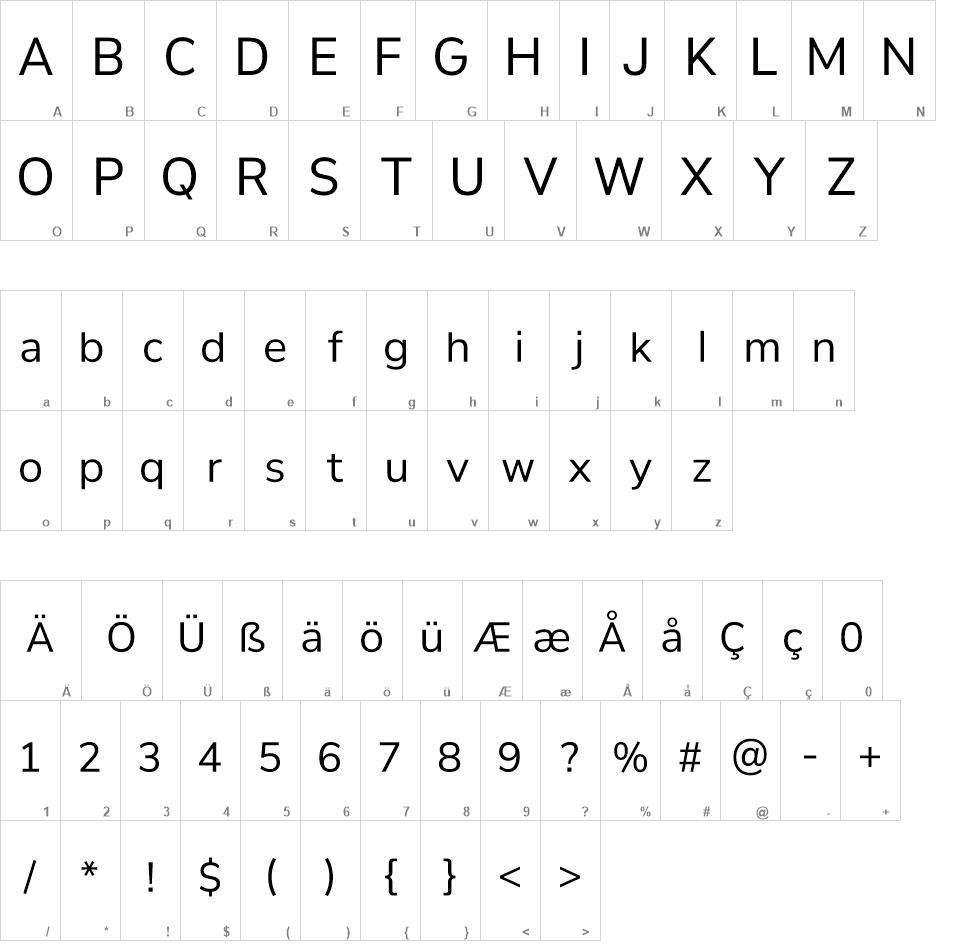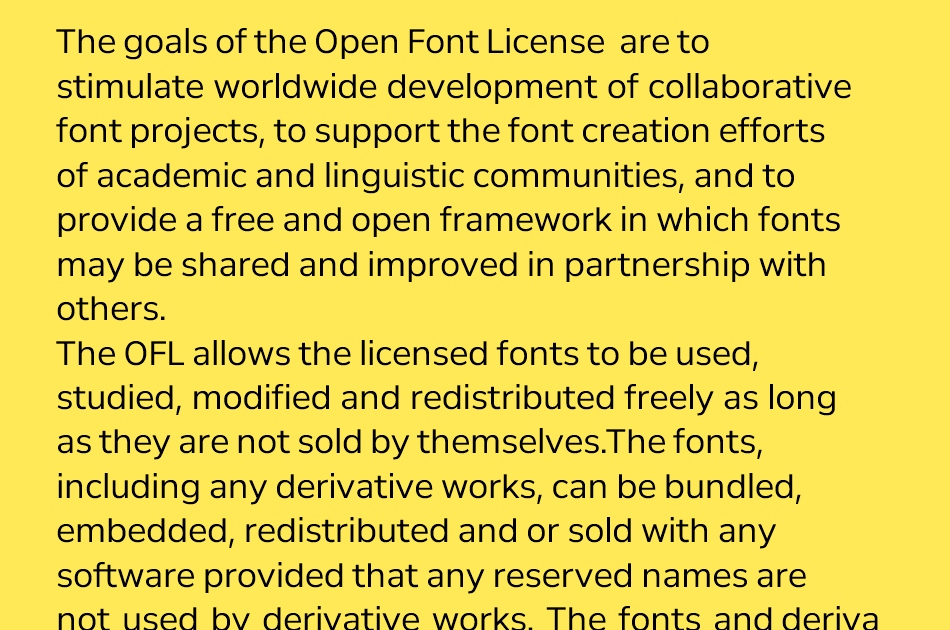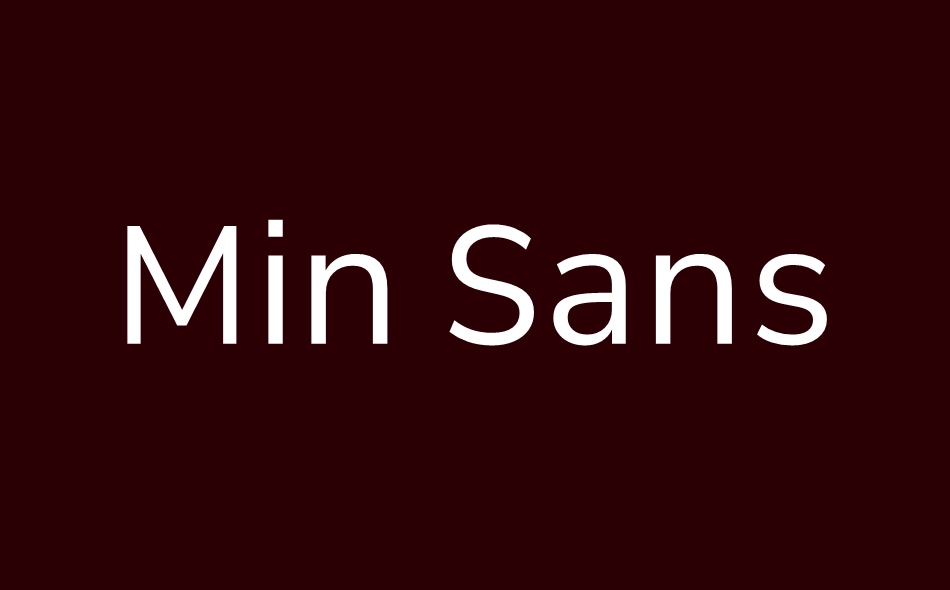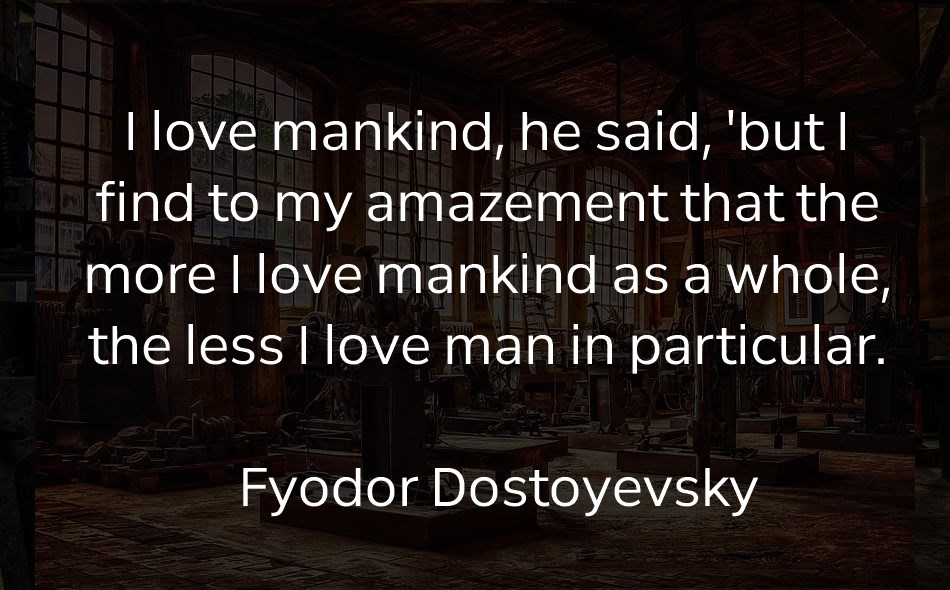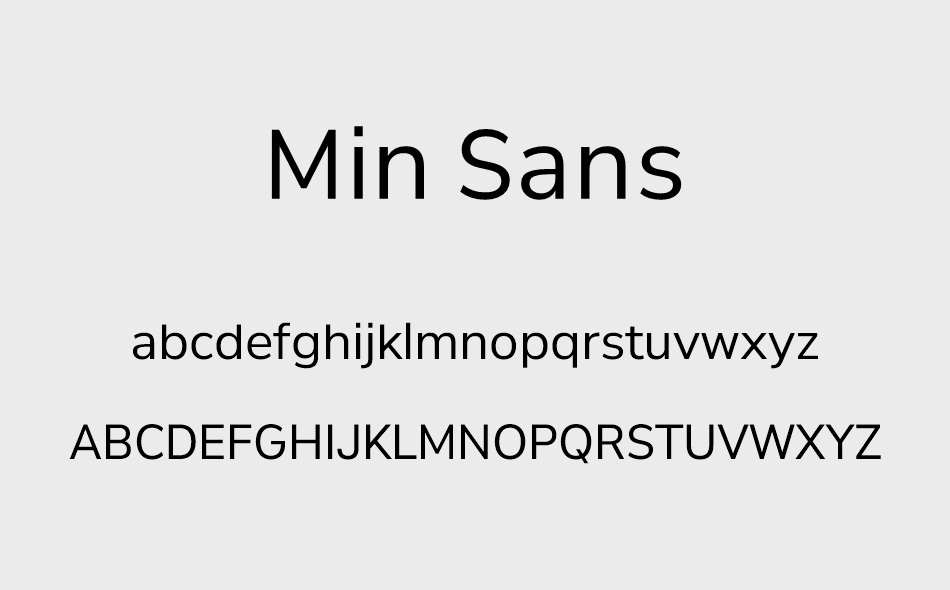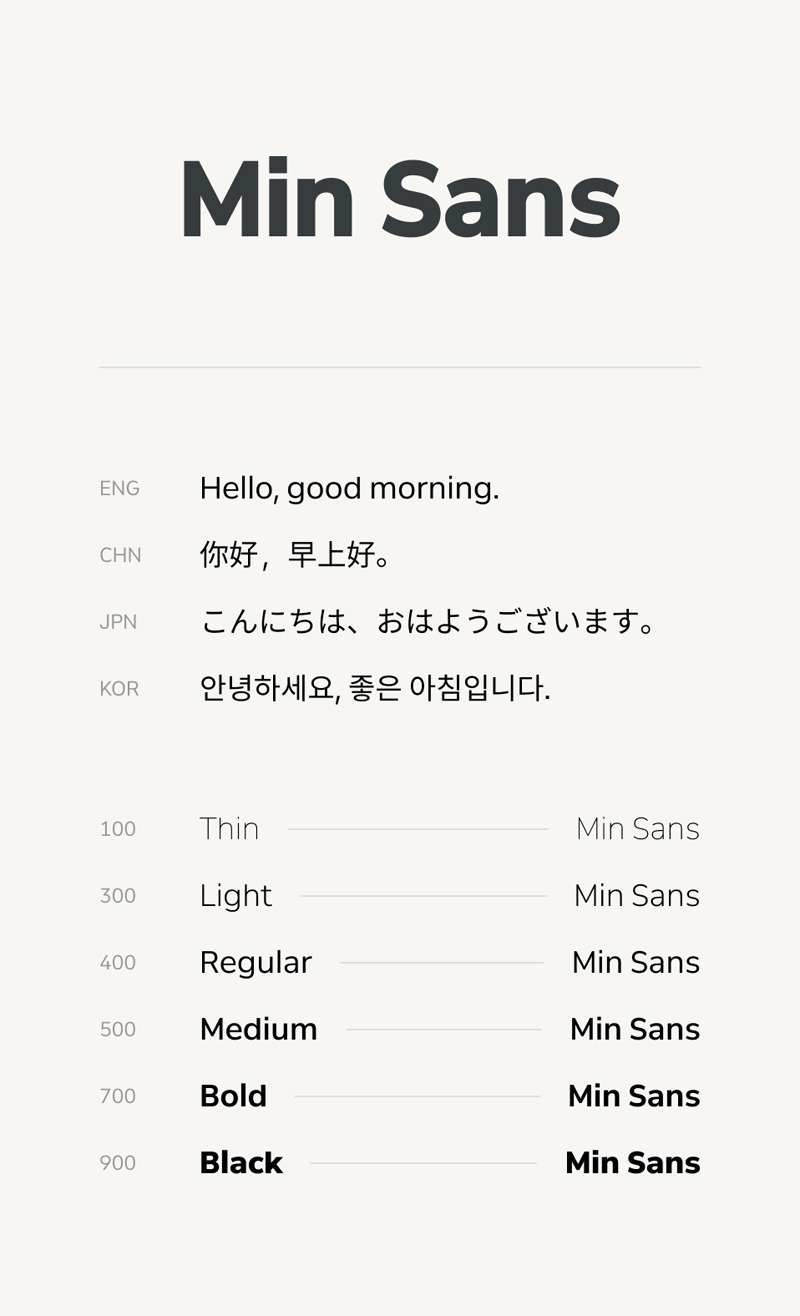
Min Sans font
Min Sans CJK fonts
It is started as a side project that solve the inconvinient issues of Noto Sans, And it is the custom font from Noto sans and Nunito Sans by myself.
The existing fonts are usally made for better readabillity, On the other hands, Min sans is especially made for the easier and faster product designing.